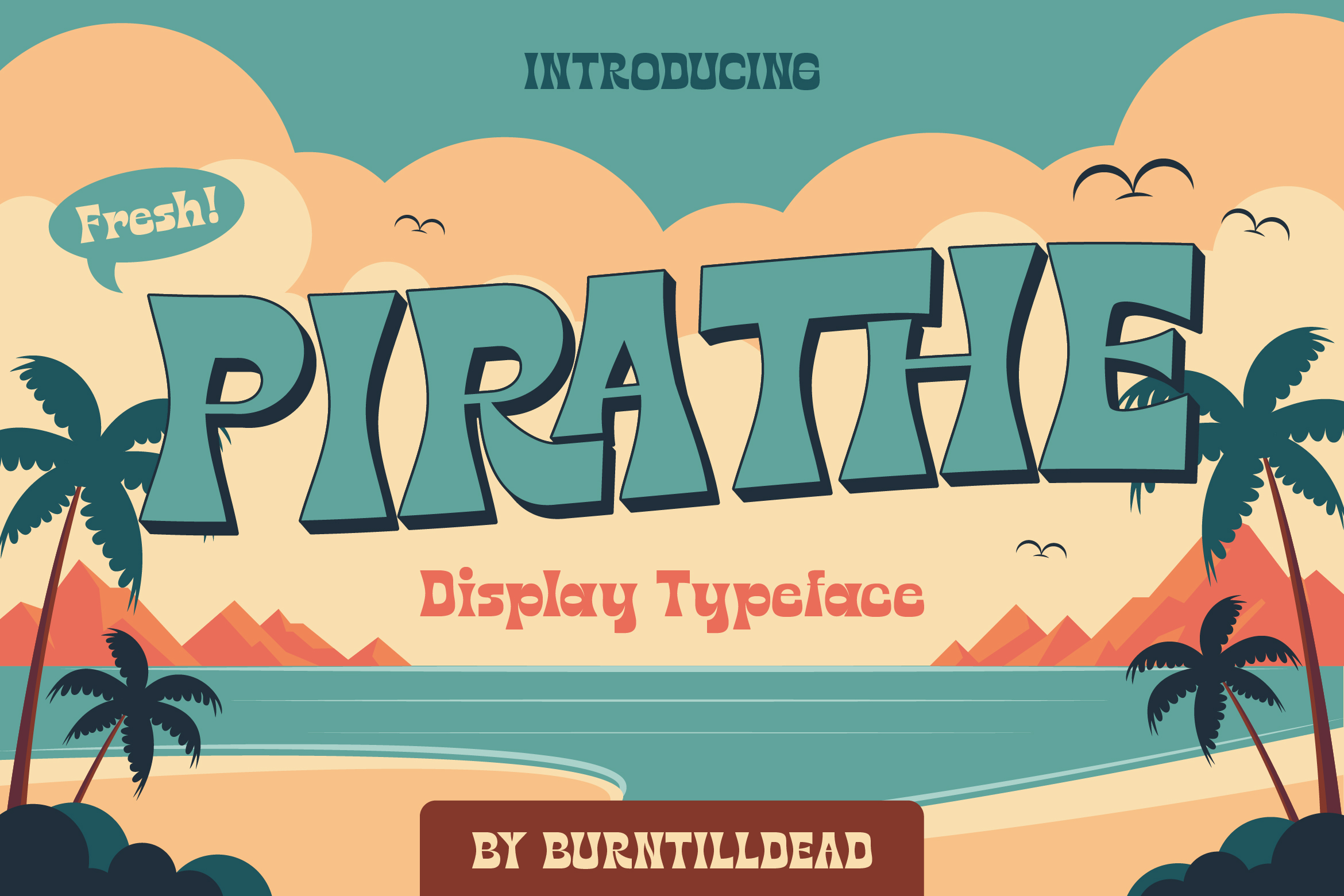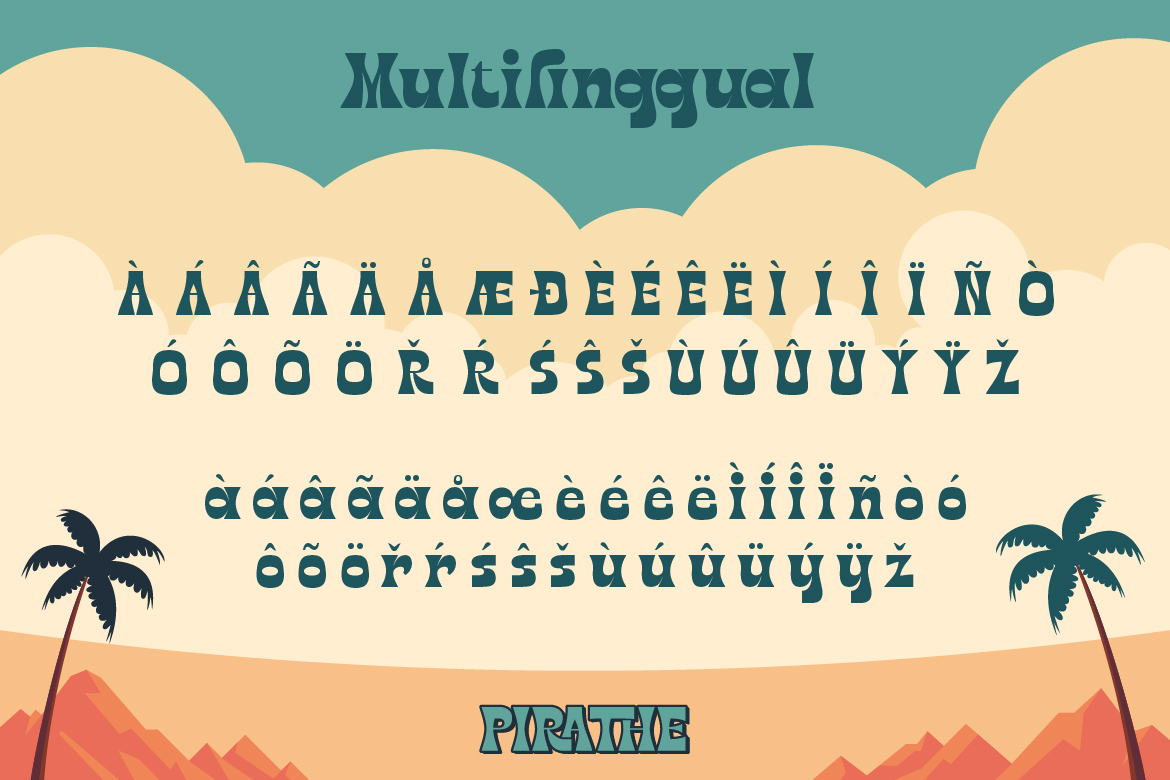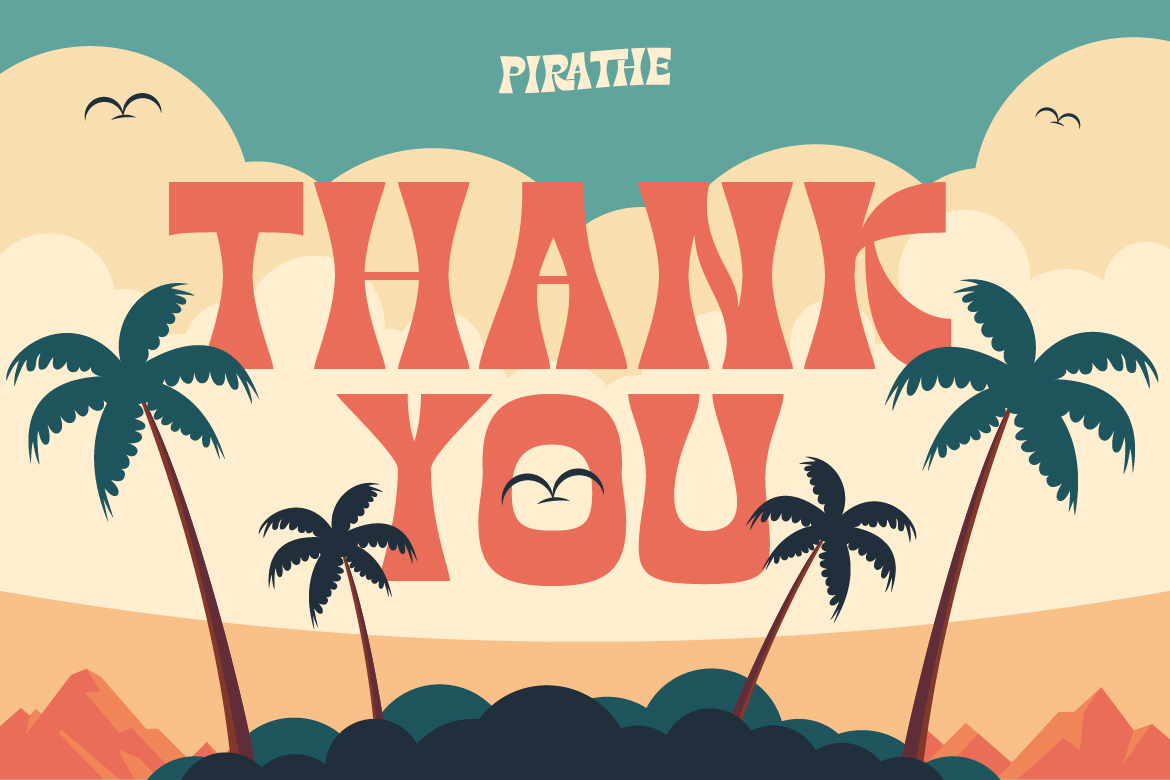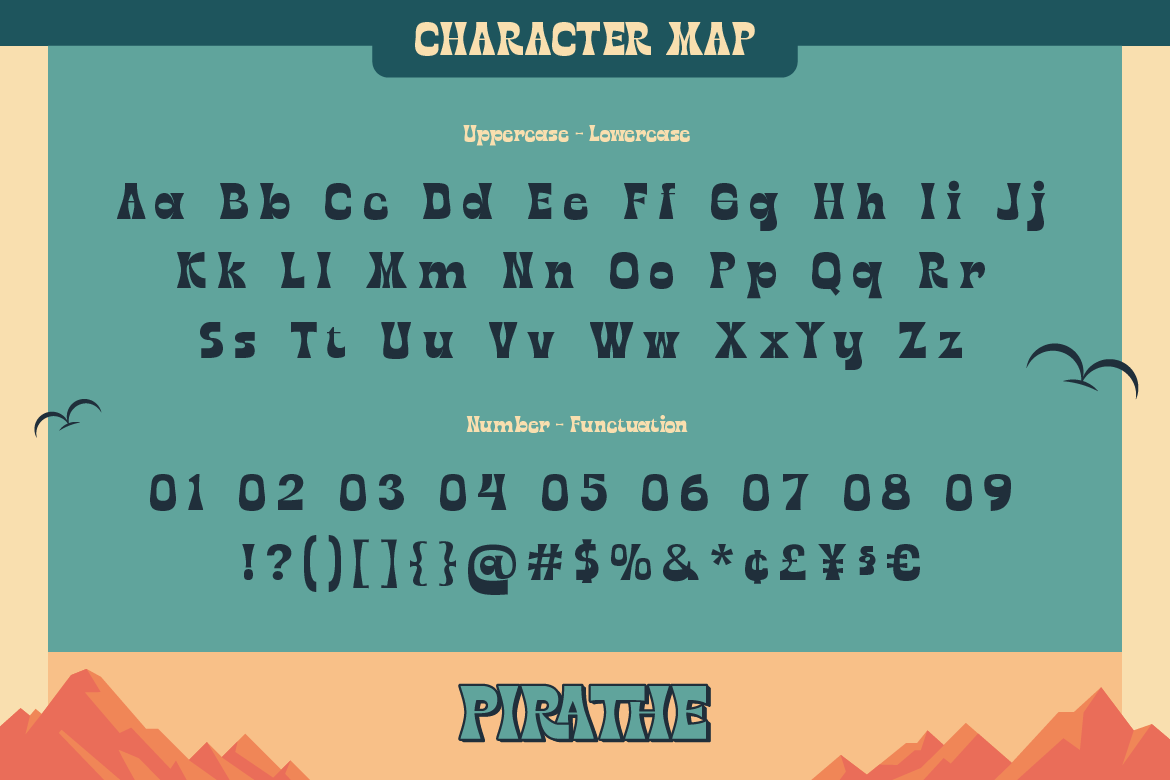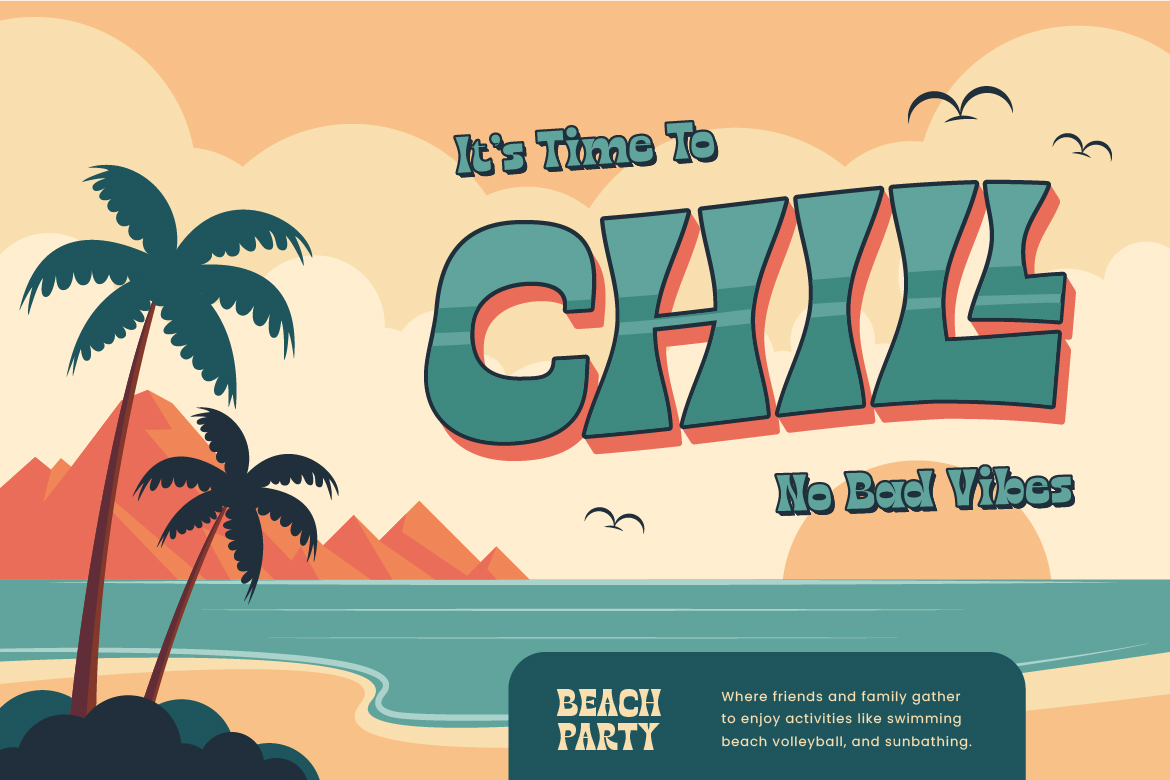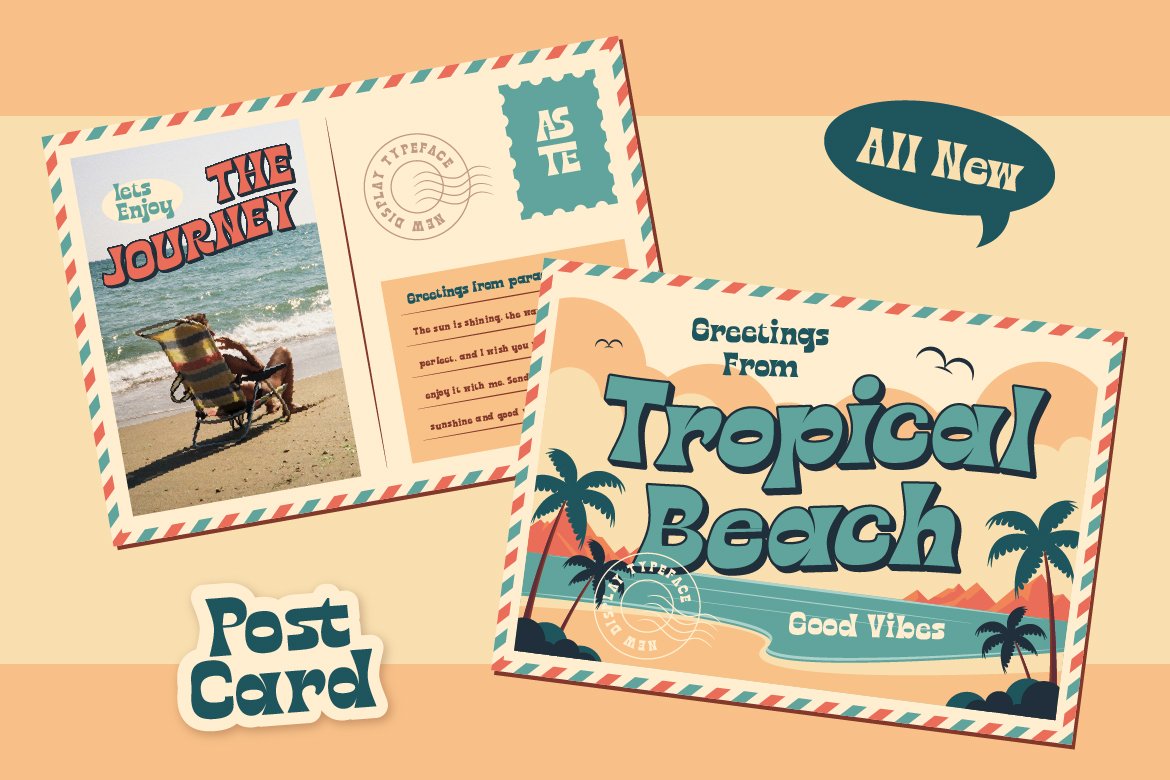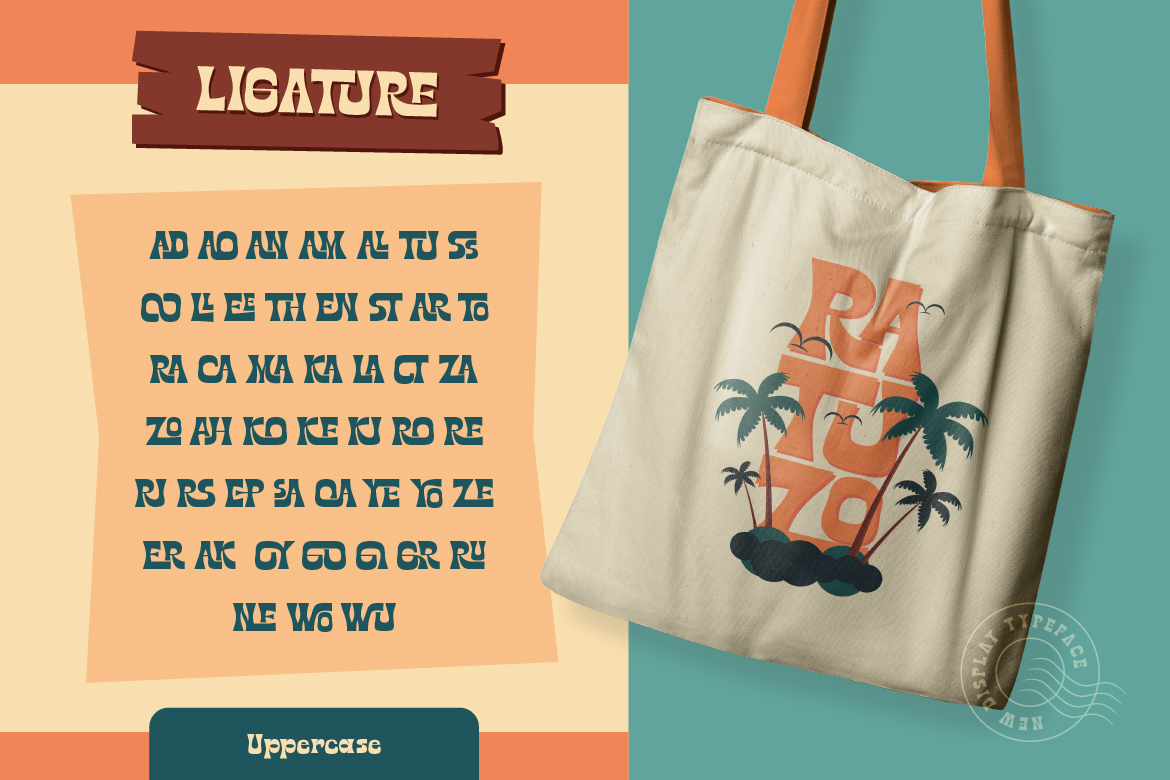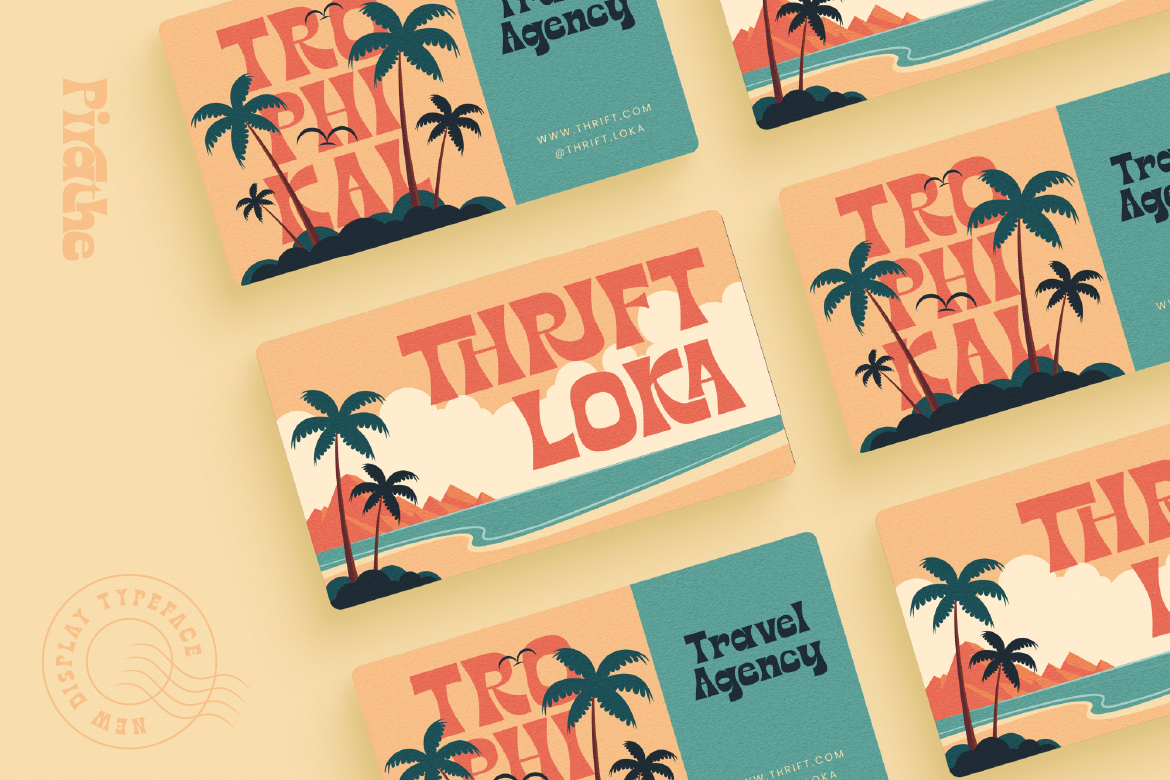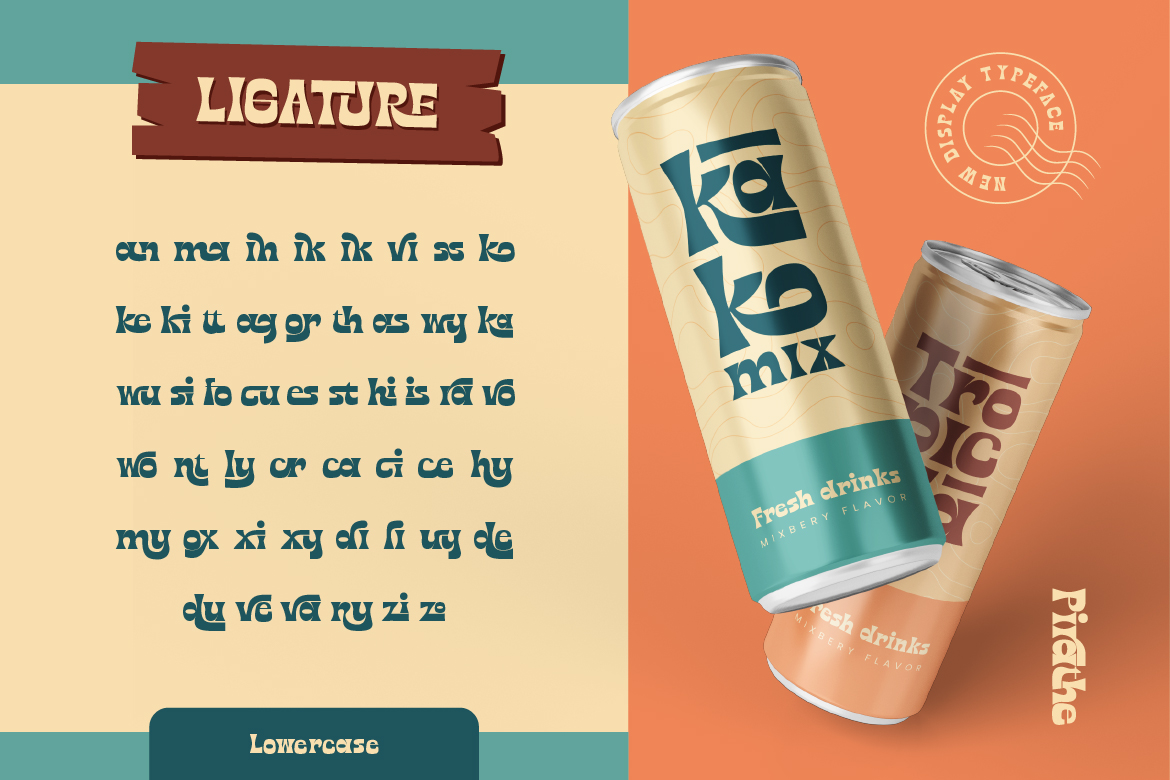
- Pirathe
Aww sooky sooky! Let me introduce you Pirathe, retro fun and groovy font bring you back to the positive vibes of 1960s and 70s era. This font really off the hook and slamming’ and perfectly to any design project with retro groovy theme. Express yourself with Pirathe and let your creativity flow! Peace, love and granola 🌟✌️